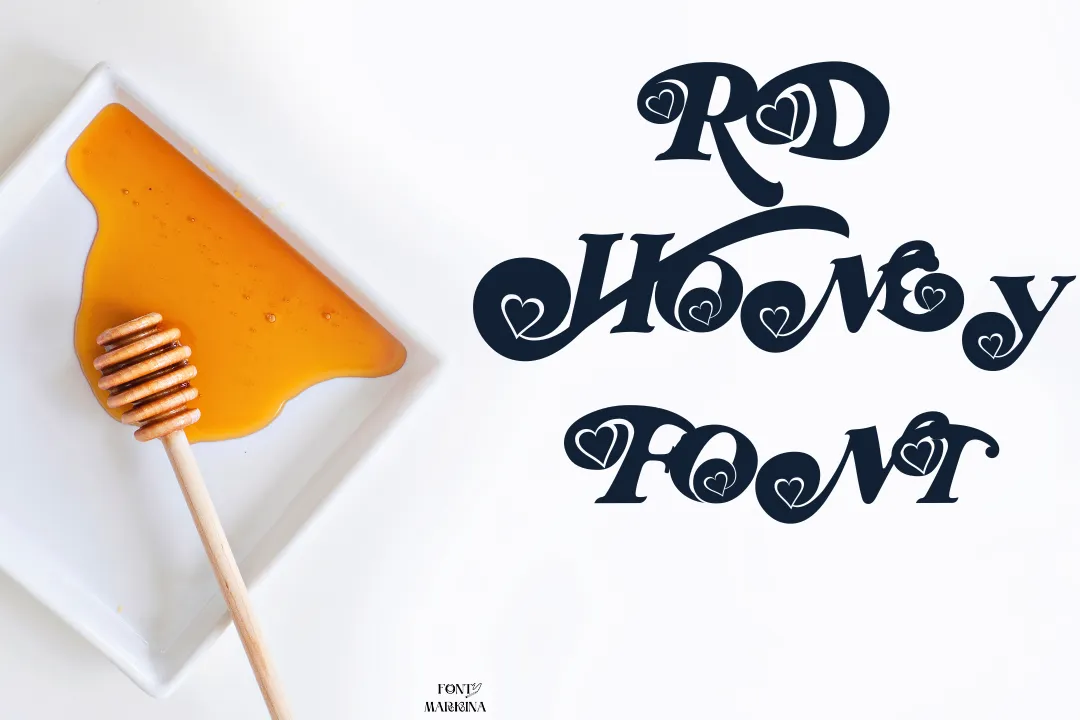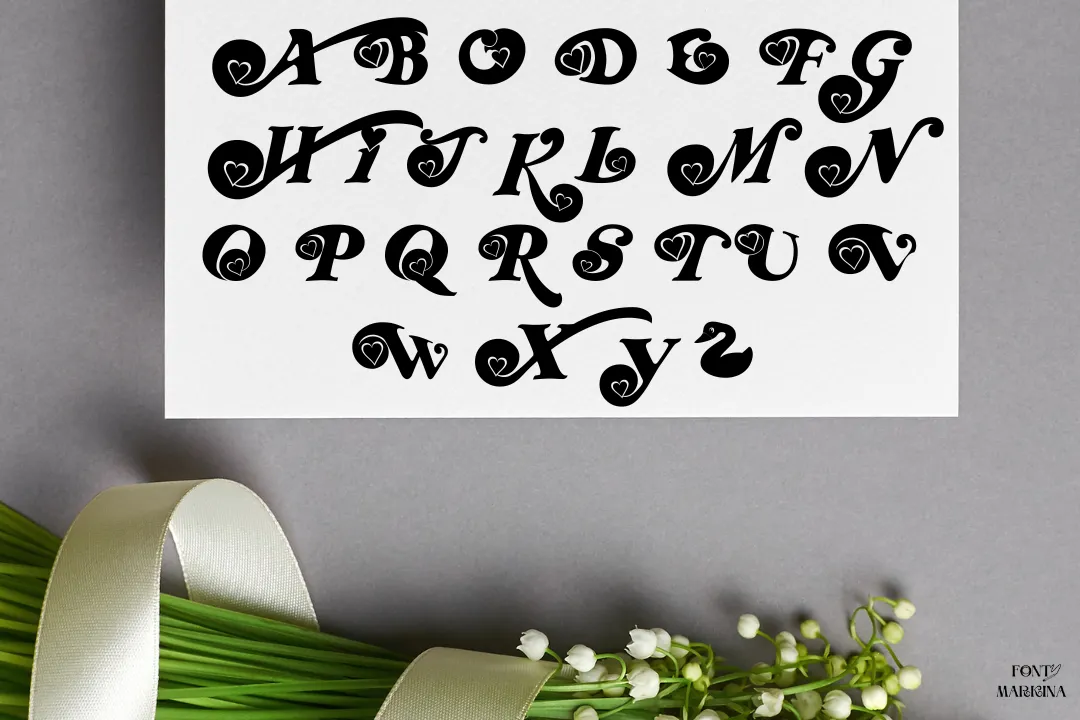
RD Honey Font
Hey! here we have a notable feature texture for you named RD Honey Font. One different and new feature of this family is that its letters are totally different and attractive looking as compared to others. That’s why everyone pays attention to the style of this one. It falls in the classification of fancy fonts.
Its round corners and random pattern make this typography more substantial in the list of fonts. Red Dragon is a very intelligent designer manufacturer in this family with a lot of hard work. Mainly the basic reason to design a unique texture for logos designs and mac. Many alternatives to this family are attainable on google fonts.
Uses of RD Honey Font
Because of its very classic and adorable designs, everyone impresses and goes to the option of this fancy family. All companies are in search of this texture for their important tasks especially different types of logos. A great number of designers and social media workers utilize RD Honey font for their textures.
If you are an expert designer then you can make the pairing of this family with Bamini Tamil font and enjoy more authentic ways. Also, poster designs, card designs, official documents, presentations, and other tasks can be done by this family of fonts. Even commonly Yutubers use this one in order to use it for different channels and thumbnails.
NameRD Honey Font
DesignerRed Dragon
StyleFancy
What is the of type RD Honey Font?
It falls in the classification of fancy fonts and has its own classic shape and style.
Where we can use RD Honey Font?
You can utilize this family of fonts according to your own desire in any field, especially for logos.
Who is the manufacturer of RD Honey texture?
Red Dragon is a very intelligent and brilliant mind designer who is a manufacturer of this family.